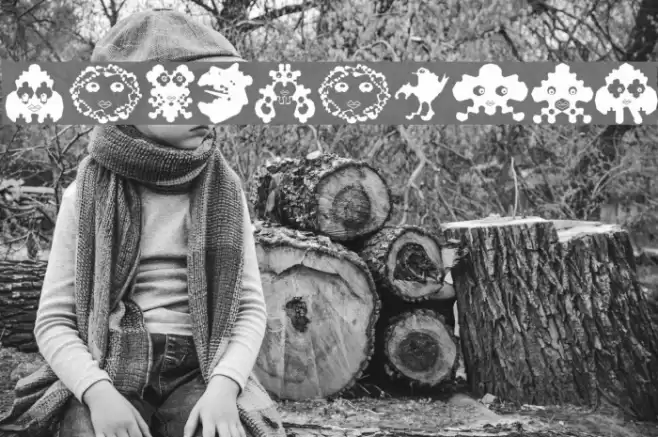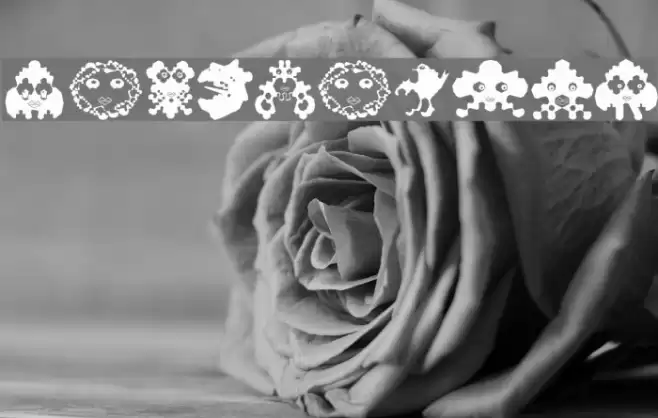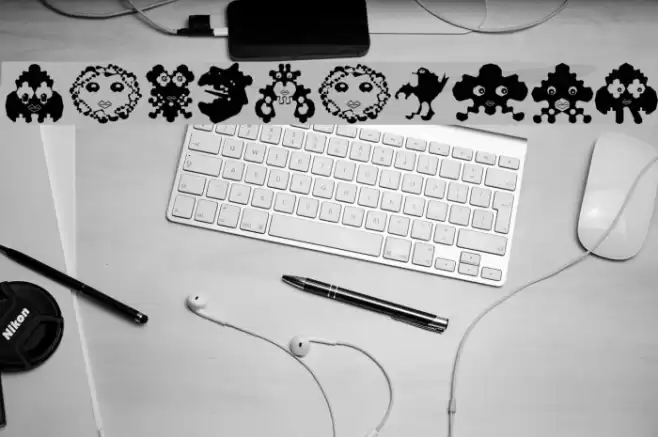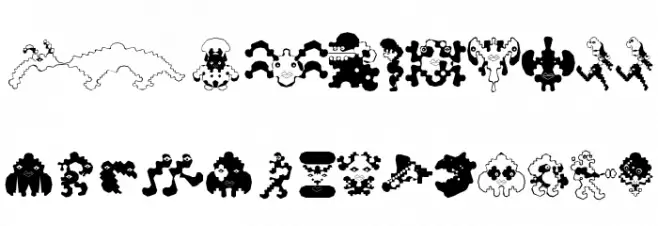
Polygonish Font
Polygonish Description
This is a highly decorative and abstract font that features characters resembling polygonal and organic shapes. Each character is a unique, intricate design that combines elements of fantasy and whimsy. The font does not adhere to traditional letterforms, instead opting for a playful and artistic interpretation of each character. The designs are bold and filled with complex patterns, making them stand out as individual pieces of art. This font is not suitable for body text due to its complexity and lack of readability but serves as an excellent choice for creative projects where visual impact is prioritized over legibility.
An abstract, decorative font with intricate, polygonal designs for each character from Uncategorized fonts.
- Proposed Projects: Ideal for artistic projects, posters, album covers, and any creative work that benefits from a bold, decorative typeface.
- Use Case: Logos, Posters, Artistic projects